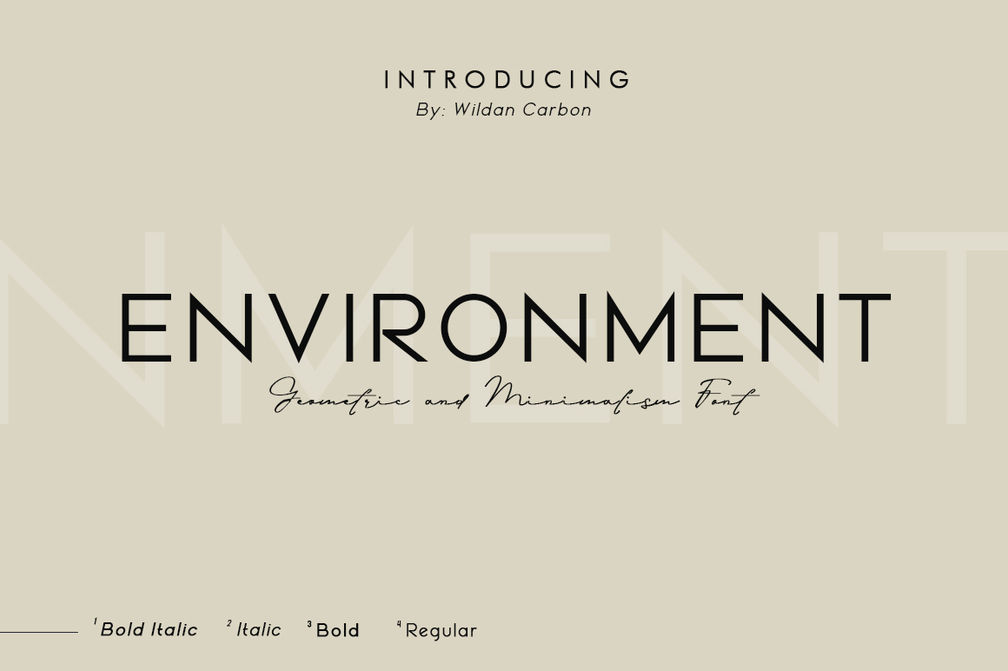
Environment
Environment is an geometric, minimalism and elegant sans serif font. It perfectly used for product presentation, elegant logo design, packaging or invitation cards
Four weights, four very different personalities.
Features
Four weights/ Numbers & Punctuation / Extensive Language Support/Alternate